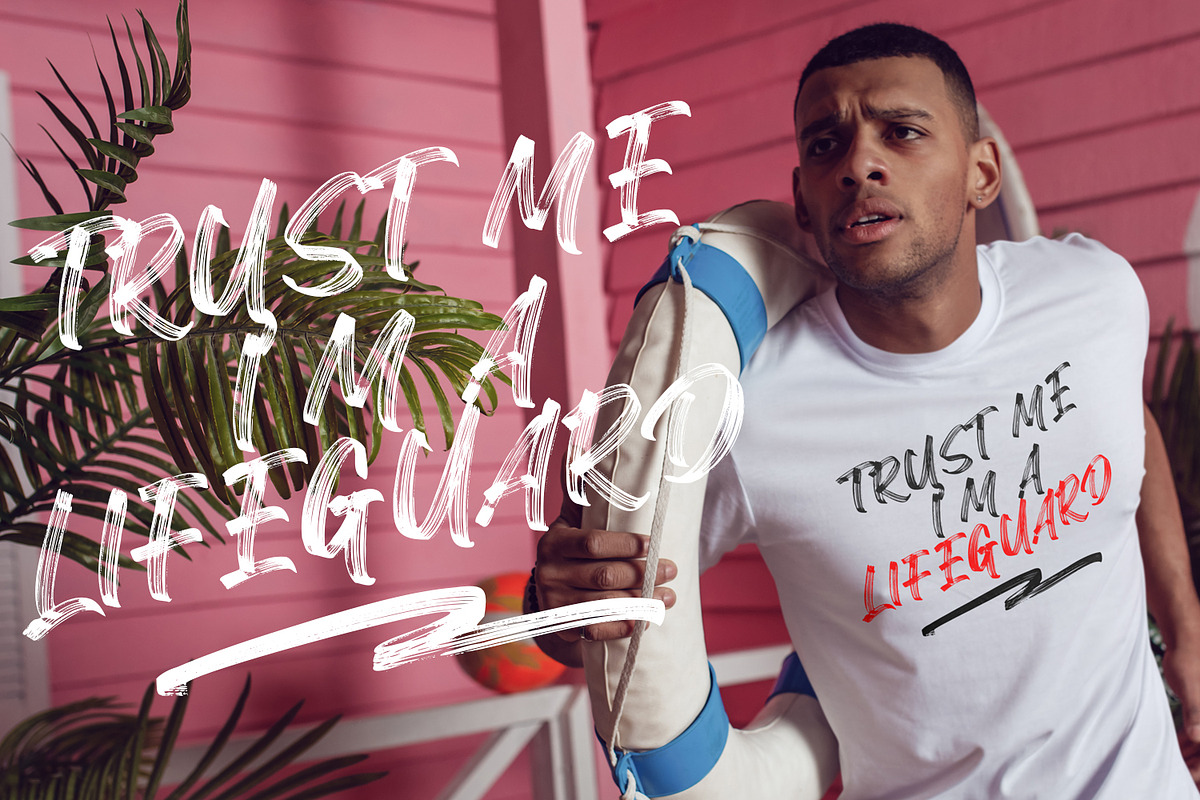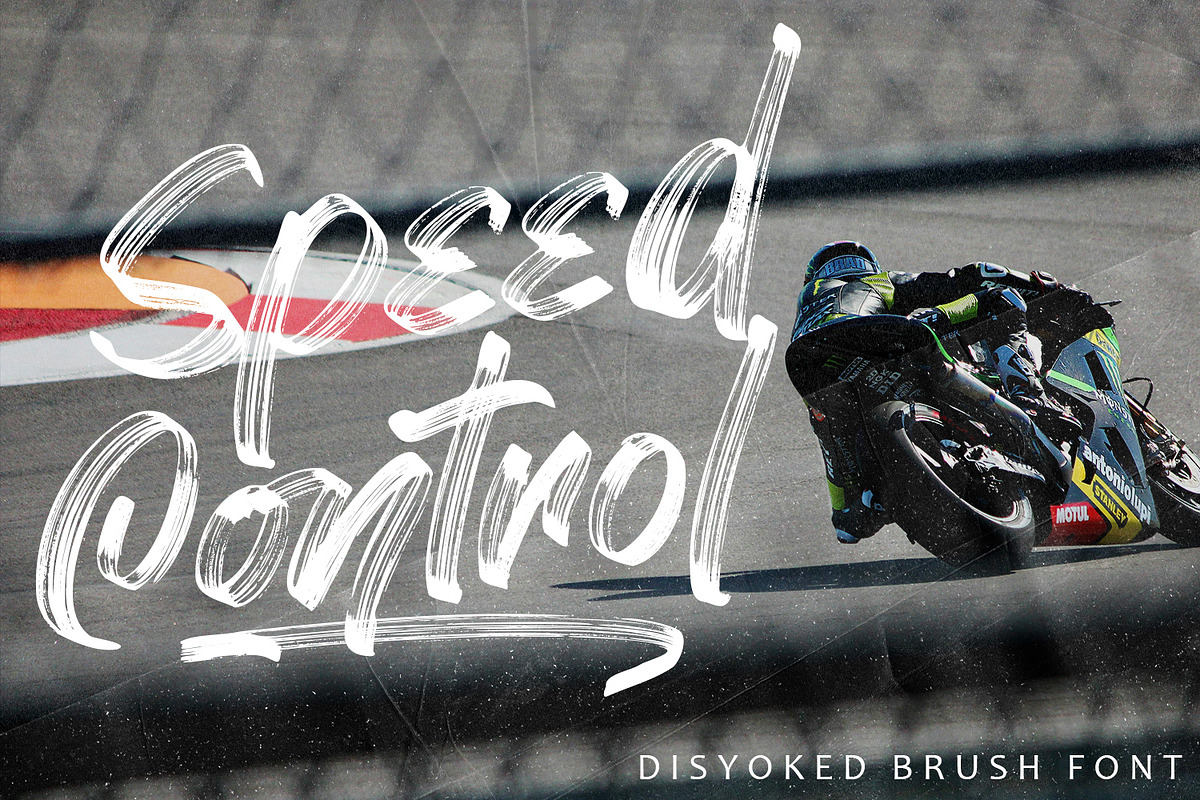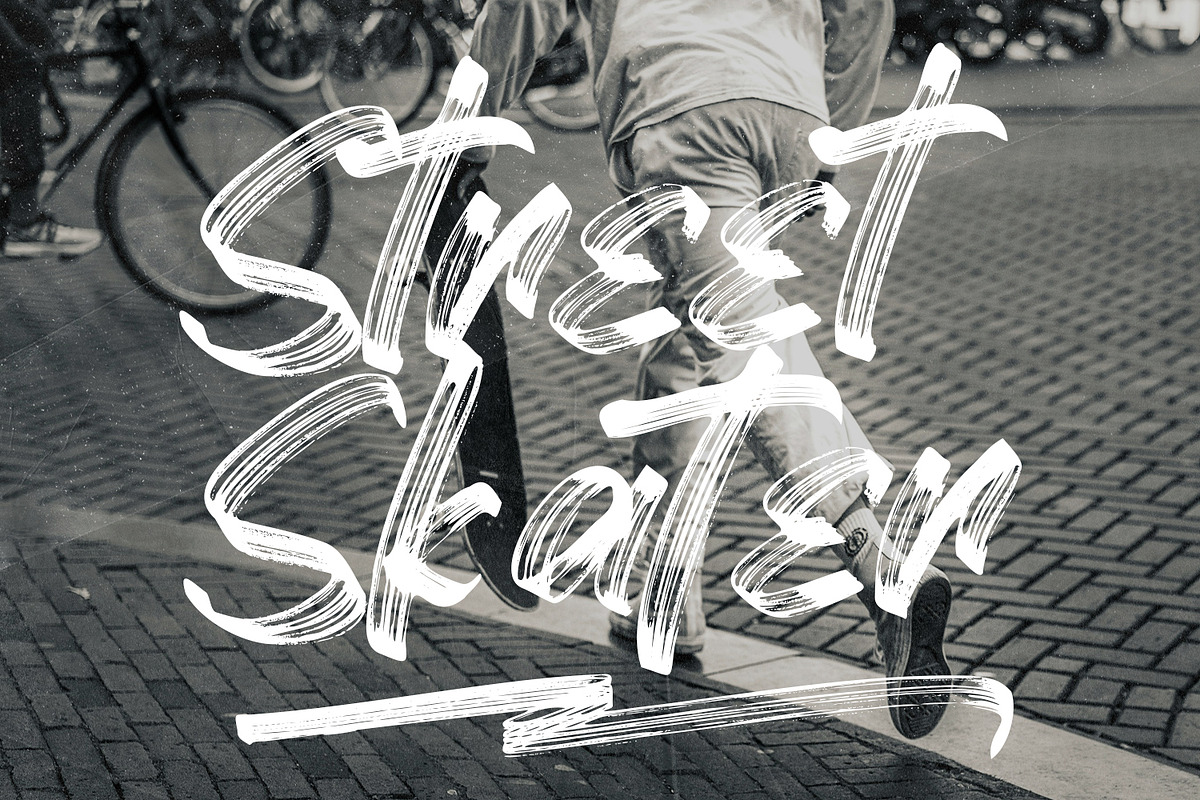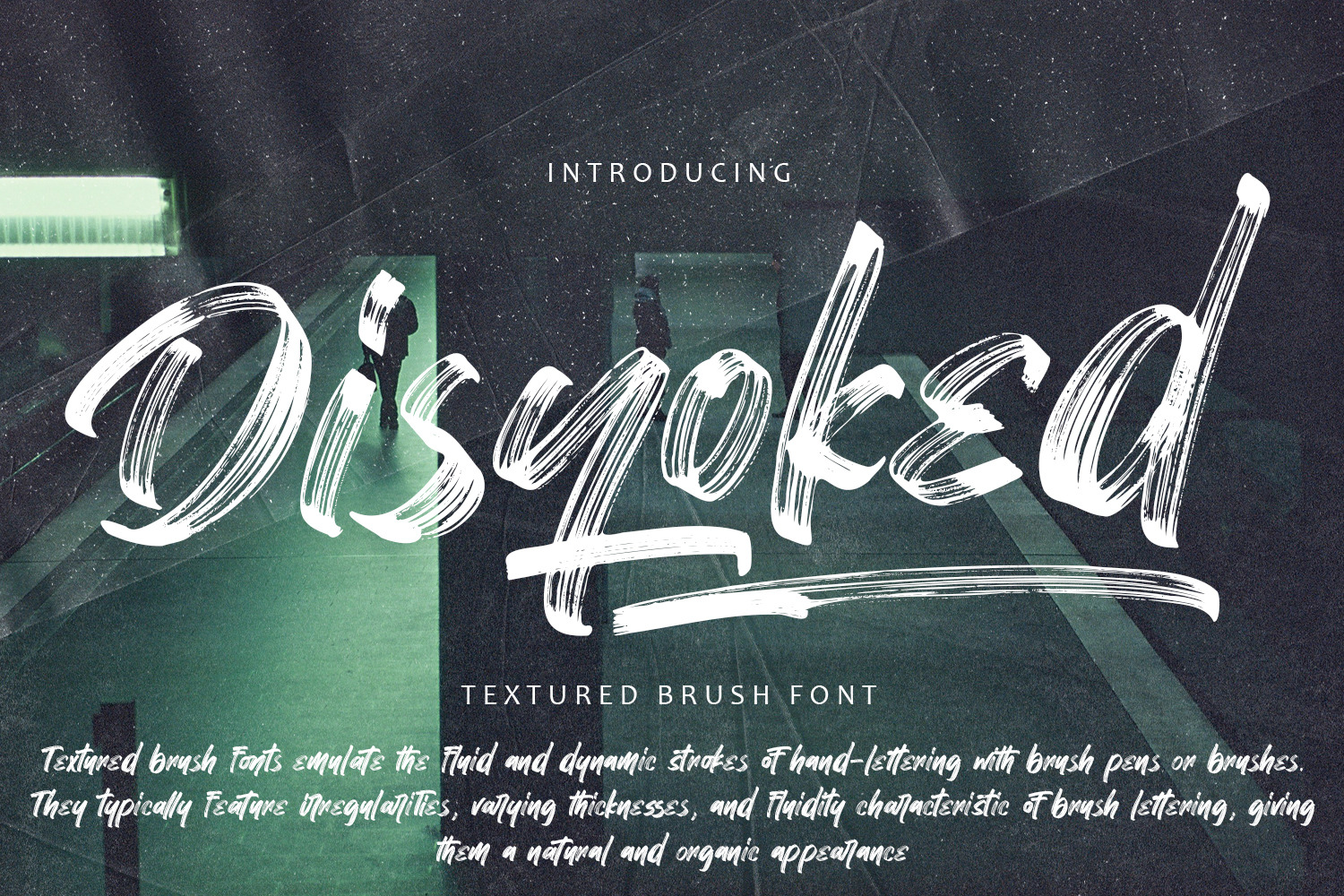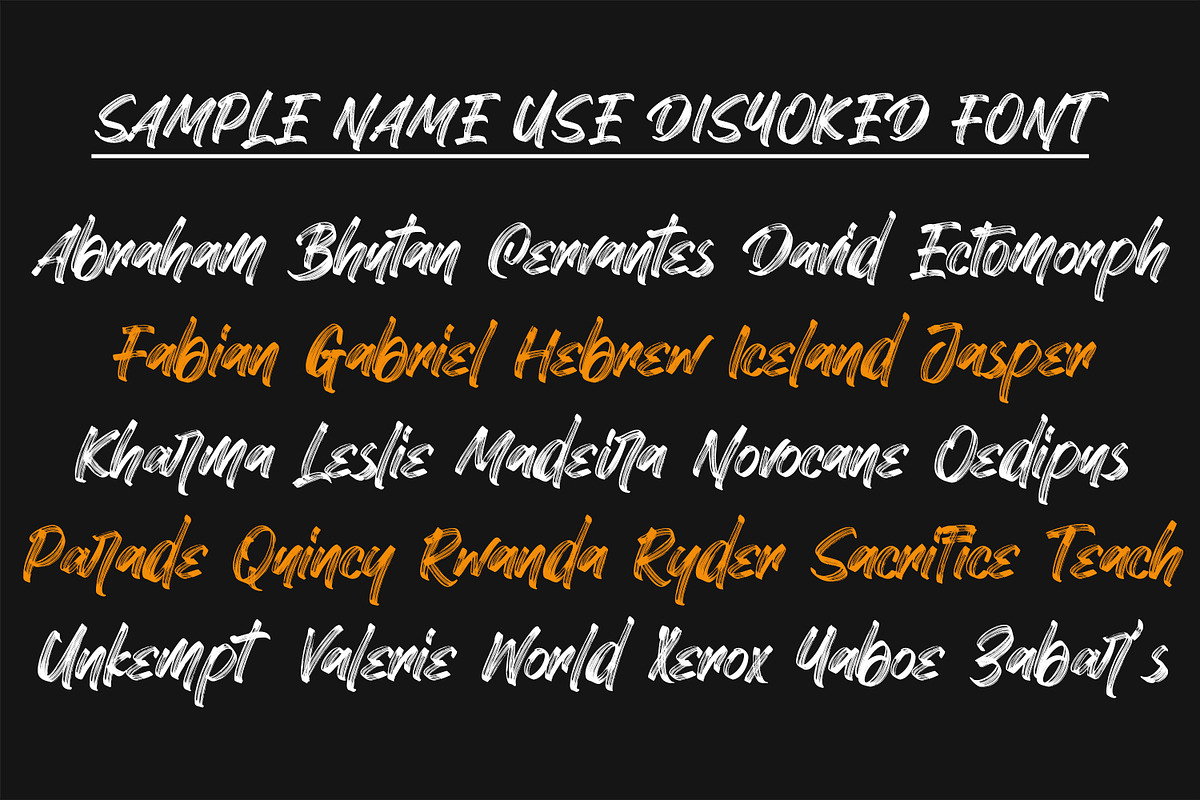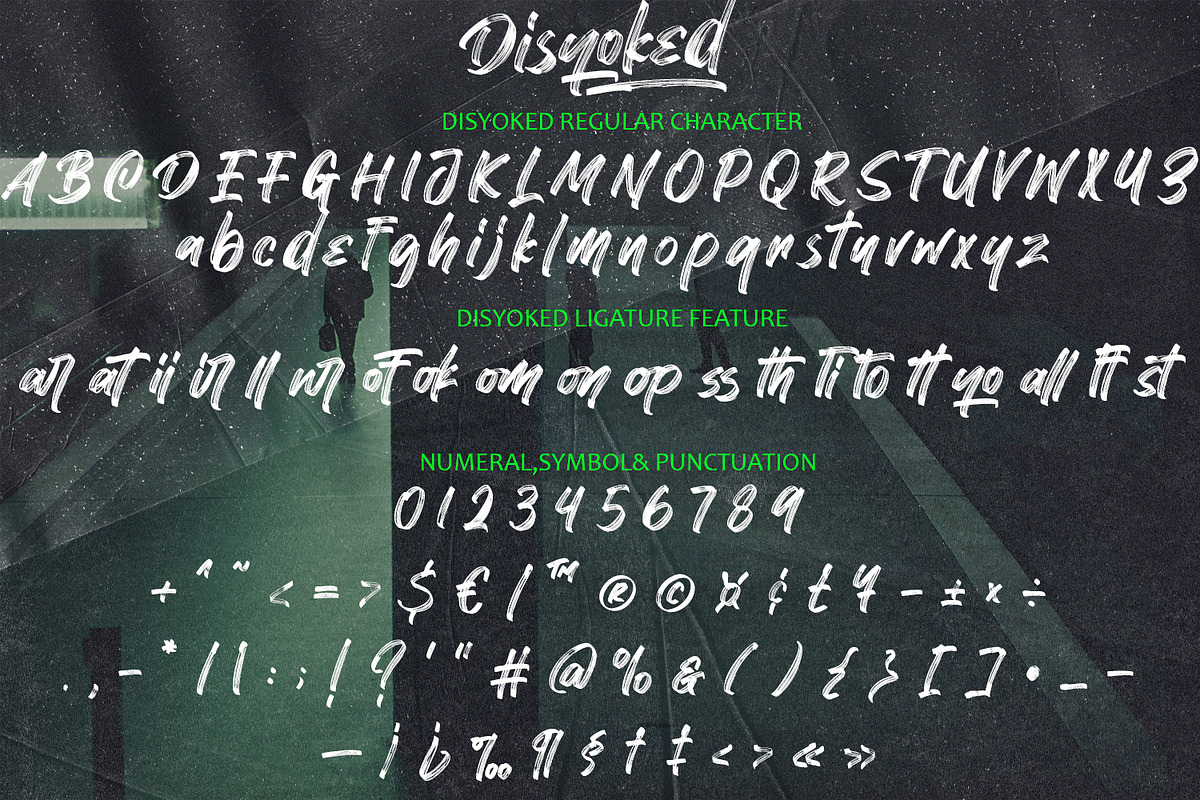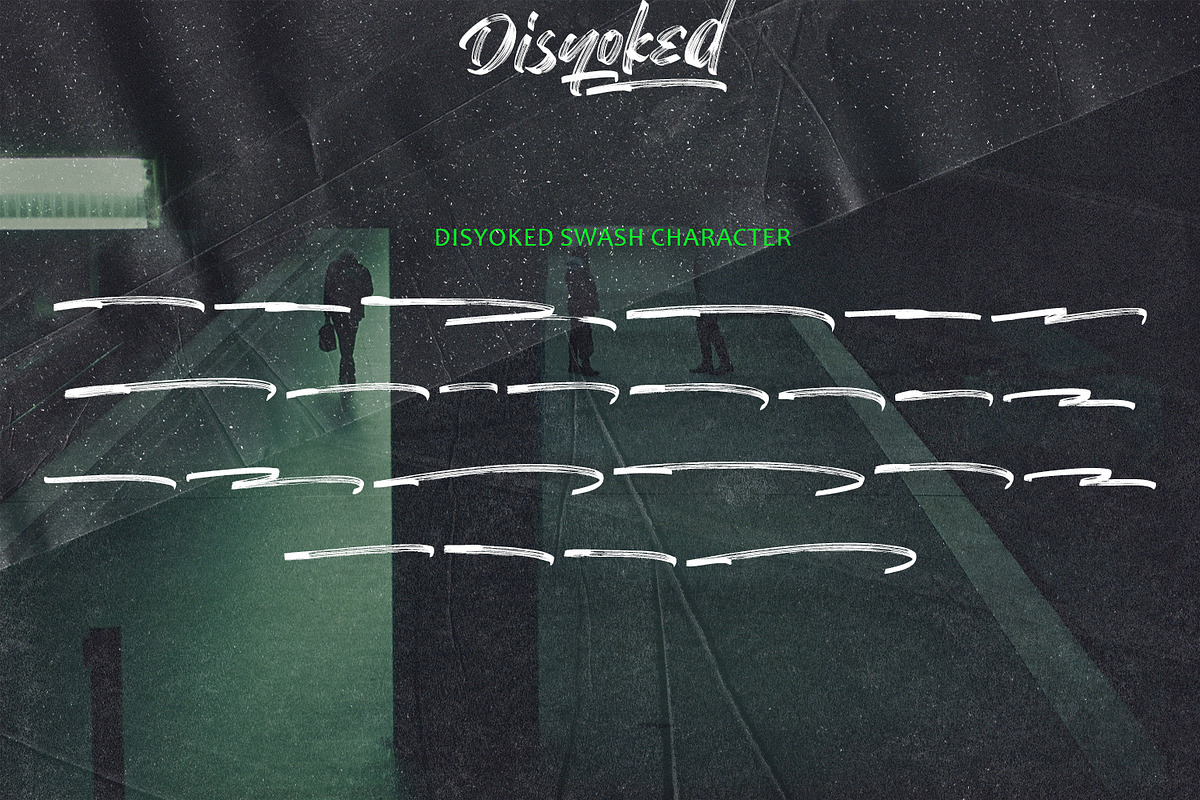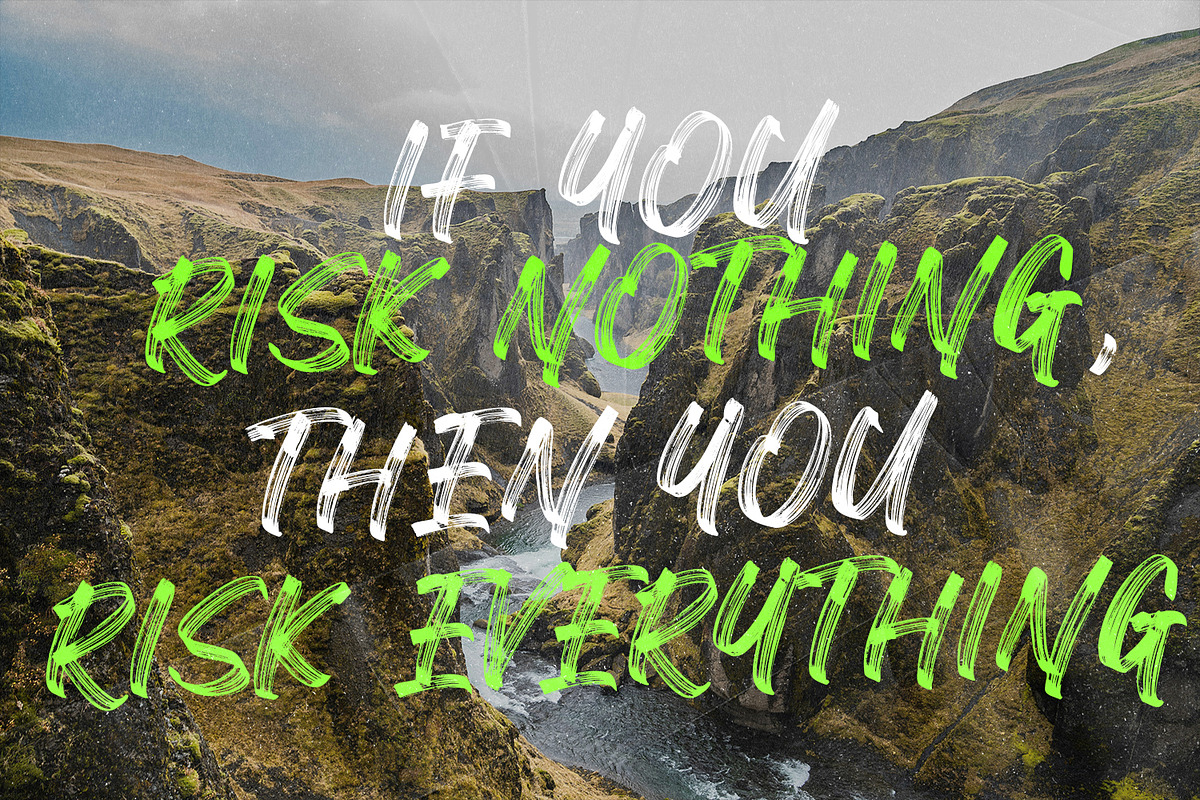
Disyoked - Textured Brush Font
"Disyoked" textured brush font is a non-script typeface that incorporates the rugged charm of brush strokes with textured elements. Here's an explanation of its key features and benefits:
Brush-Inspired Design: While "Disyoked" is not a script font, it draws inspiration from brush techniques, featuring letterforms that emulate the natural strokes of a brush or brush pen. This gives the font a dynamic and handcrafted appearance.
Textured Elements: "Disyoked" includes textured elements within its letterforms, adding depth and character to the typography. These textures simulate the look of distressed or weathered brush strokes, enhancing the font's visual interest.
Distinctive Aesthetic: The combination of brush-inspired design and textured elements gives "Disyoked" a distinctive aesthetic that sets it apart from traditional serif or sans-serif fonts. It exudes a rugged and artisanal vibe, making it ideal for designs that require a unique and eye-catching typography.
Bold and Impactful: Despite its non-script style, "Disyoked" maintains a bold and impactful presence, making it suitable for headlines, titles, and other prominent design elements. Its robust letterforms command attention and convey a sense of strength and confidence.
Versatility: While "Disyoked" may have a rugged and textured appearance, it remains versatile in its application. It can be used across a variety of design projects, including branding, packaging, posters, apparel, and more, adding a touch of authenticity and personality to any design.
Visual Interest: The textured elements in "Disyoked" add visual interest and depth to designs, making them more captivating and engaging to viewers. The rugged aesthetic of the font creates a tactile quality that draws the eye and invites closer inspection.
Expressive Typography: Despite its non-script style, "Disyoked" allows designers to convey emotion, personality, and style through typography. Its handcrafted appearance adds a human touch to designs, making them feel more authentic and relatable.
Flexibility: With its bold and distinctive appearance, "Disyoked" offers flexibility in design. Designers can use it to create impactful headlines, striking logos, or decorative elements that stand out and leave a lasting impression.
Timelessness: "Disyoked" has a timeless quality that transcends trends and fads. Its rugged aesthetic evokes a sense of authenticity and nostalgia, making it a durable choice for design projects that aim to make a lasting impact.
In summary, the "Disyoked" textured brush font is a versatile and visually compelling typeface that adds character and personality to design projects. Its bold letterforms, textured elements, and distinctive aesthetic make it a valuable asset for designers seeking to create memorable and impactful designs.